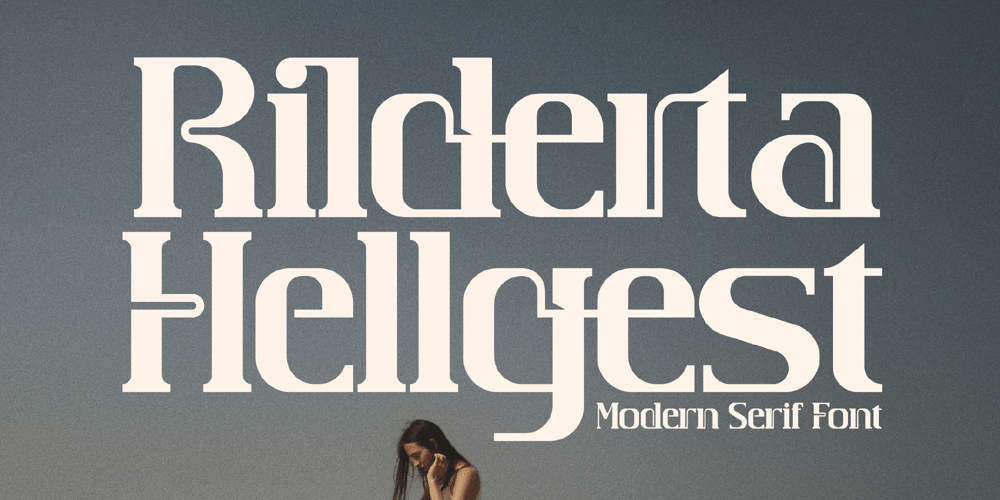
Rilderta Hellgest
Rilderta Hellgest Font Family was designed by Heru Utama Putra and published by Letterena Studios. Rilderta Hellgest contains 2 styles and family package options. Rilderta Hellges feels playfully nostalgic and delivers an incredible vintage aesthetic. Use this serif font to add that special retro touch to any design idea you can think of! This font is PUA encoded which means you can access all of the amazing glyphs and ligatures with ease!